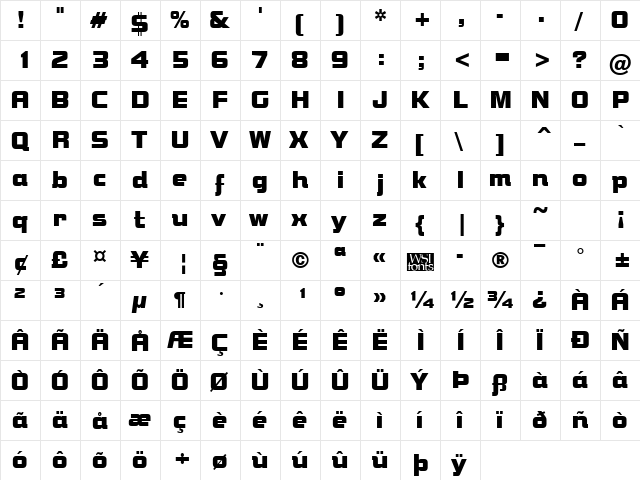
Bolster Regular
Design Context for Bolster Typeface
Bolster takes a measured approach to typography — its balanced proportions and neutral character make it a reliable workhorse for both digital and print work.